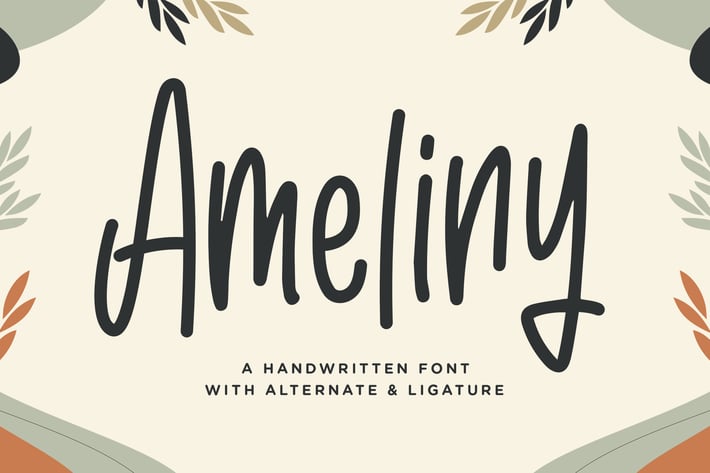
Ameliny - A Handwritten Font
Introducing "Ameliny" - a handwritten font that adds a personal touch and artistic flair to your projects.
With its organic and fluid letterforms, "Ameliny" captures the essence of natural handwriting. Each character is thoughtfully crafted to bring warmth and authenticity to your designs, making it perfect for personalized branding, heartfelt messages, creative posters, and more.
Embrace the handcrafted charm of "Ameliny" as it effortlessly infuses your designs with a touch of personality. Whether you're creating unique logos, expressive quotes, artistic packaging, or charming social media graphics, this font will captivate your audience with its handwritten and artistic style.
Celebrate the beauty of individuality with "Ameliny" and let your designs speak with a handwritten flourish!
– Lowercase
– Ligature
– Alternate
– Multilingual Support